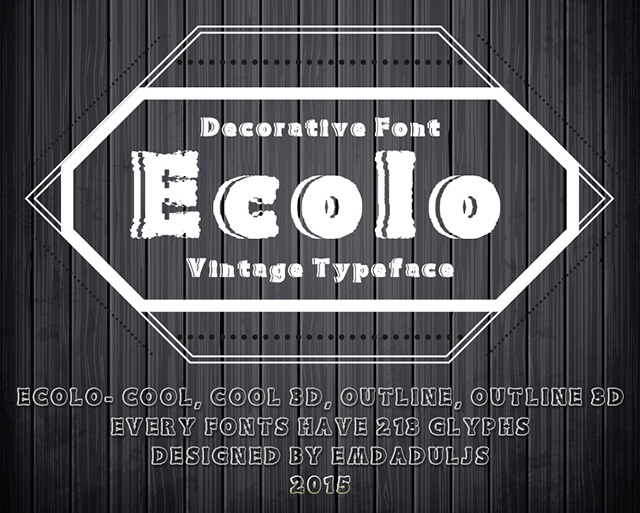
Ecolo Family Font
is a decorative Font. Available 213 glyphs with ttf and otf both files. Also make a new type looking with combined of two type. This font is a great to create the design focus by this fonts type. Also useful for any Design project. Headlines, Poster,Tag design, Newspaper & Magazine Ad Design and many more.